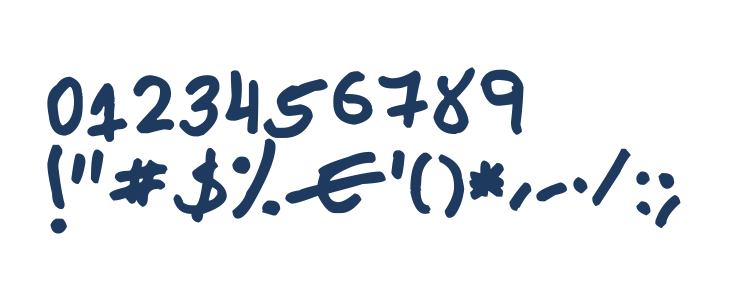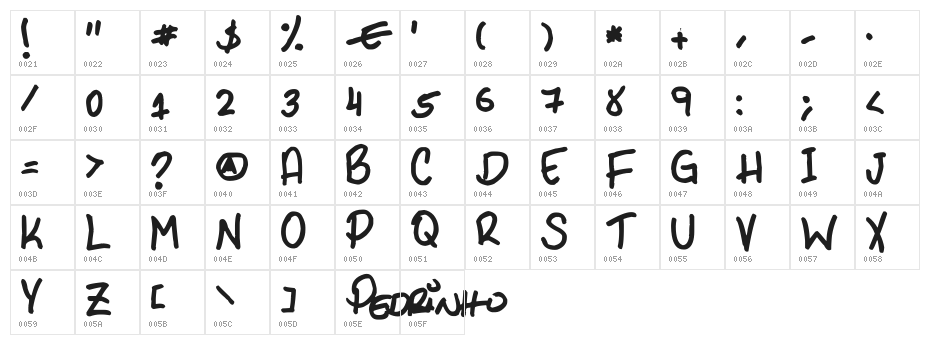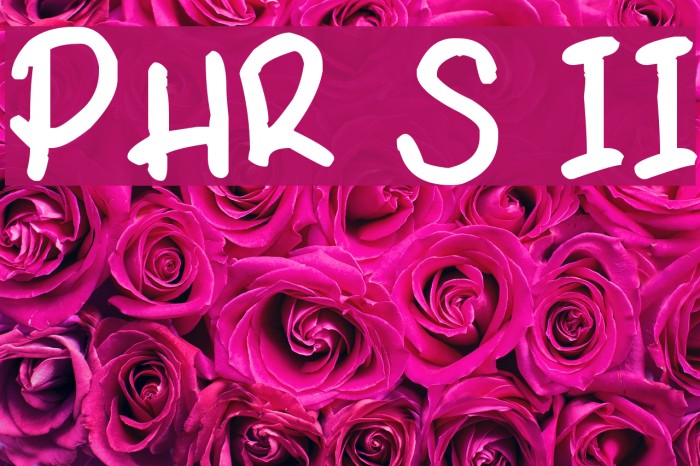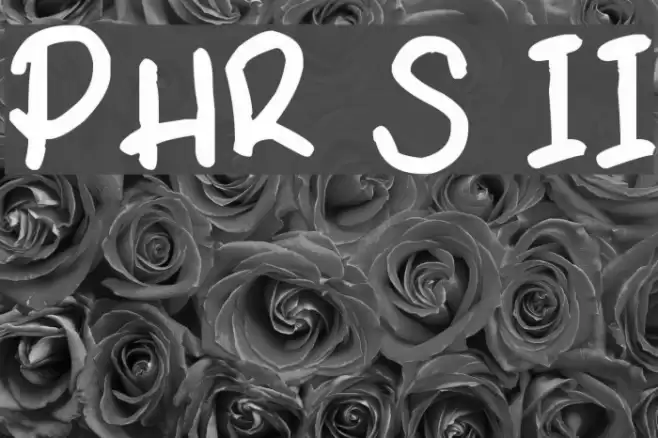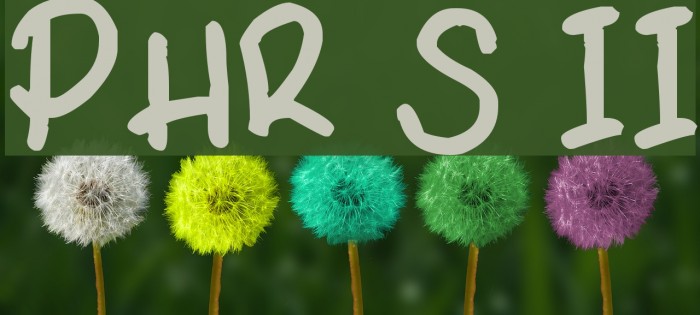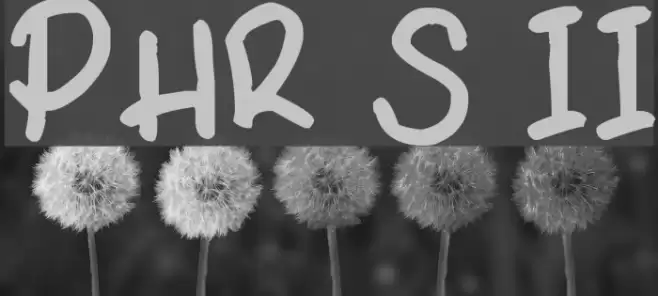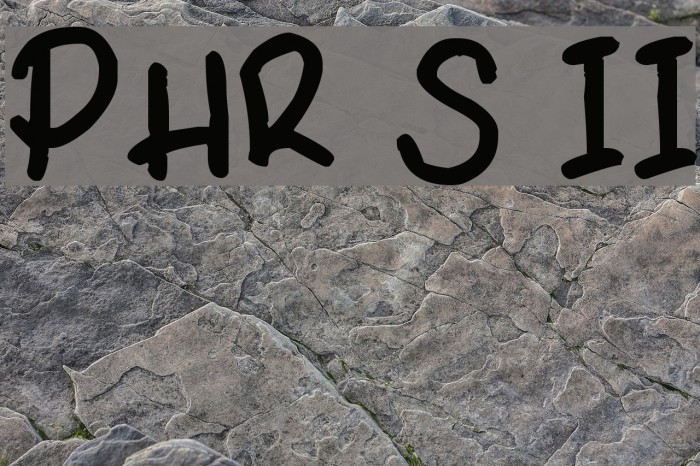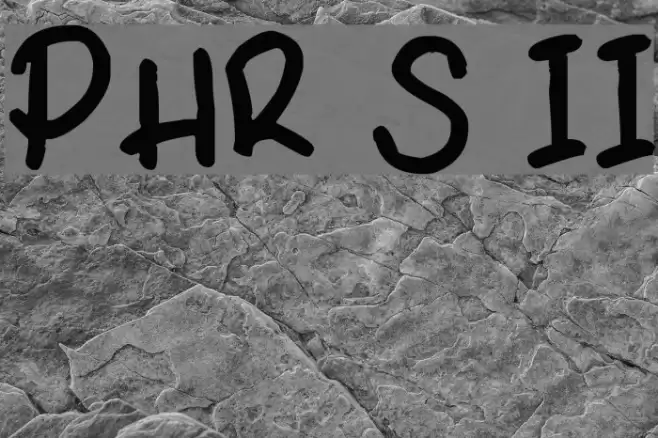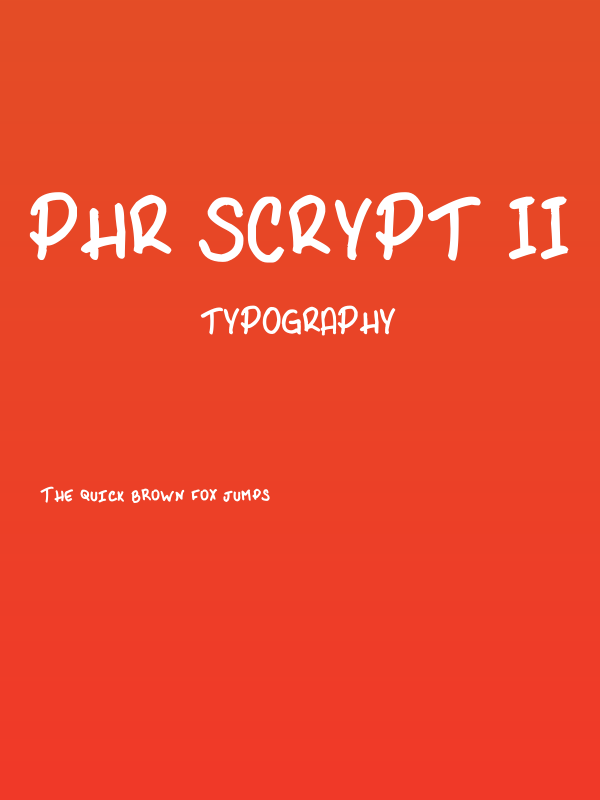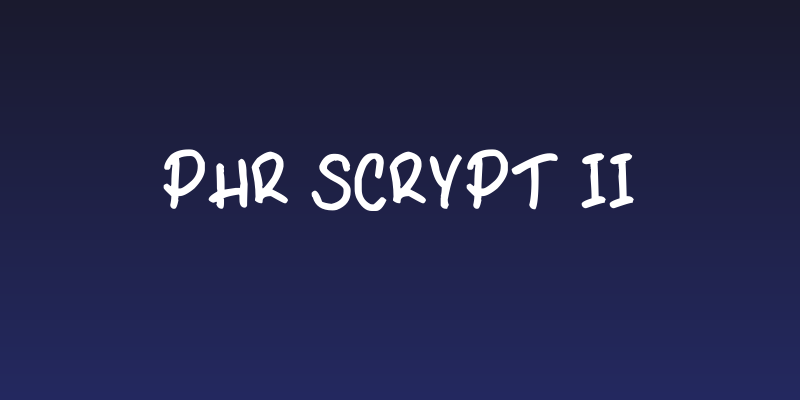
PHR Scrypt II Font
PHR Scrypt II Description
This font features a playful, handwritten style with bold, rounded strokes that give it a casual and friendly appearance. The characters are slightly irregular, adding to the hand-drawn aesthetic. Uppercase and lowercase letters maintain a consistent style, with a noticeable tilt and varying stroke thickness. The numbers and special characters follow the same design principles, ensuring a cohesive look across all glyphs. This font is ideal for projects that require a personal touch, such as invitations, greeting cards, or informal branding materials. Its unique style makes it stand out, while still being legible and versatile.